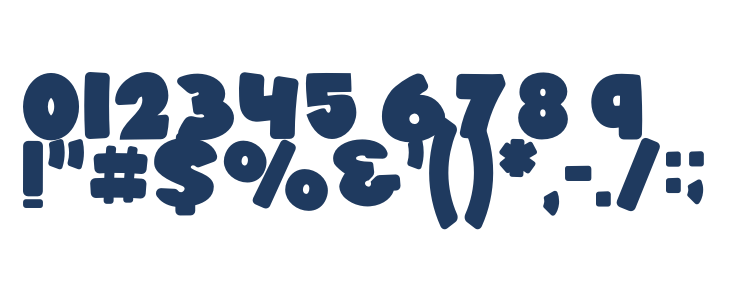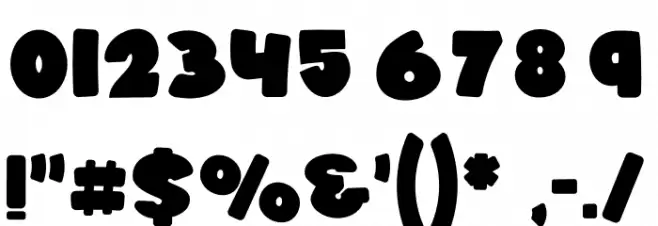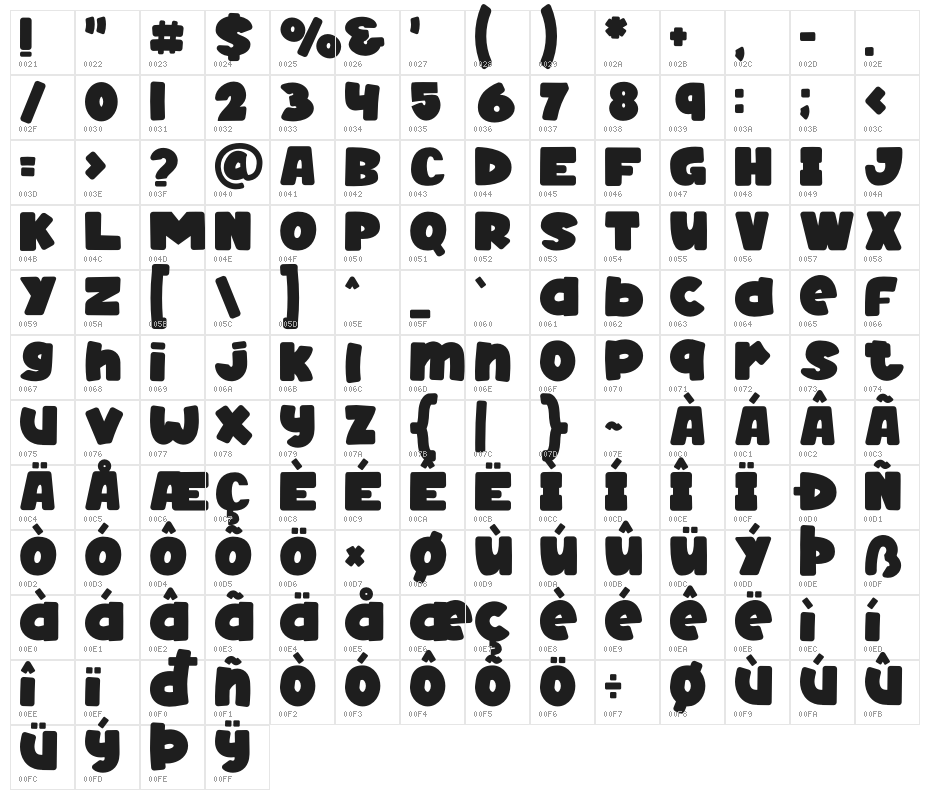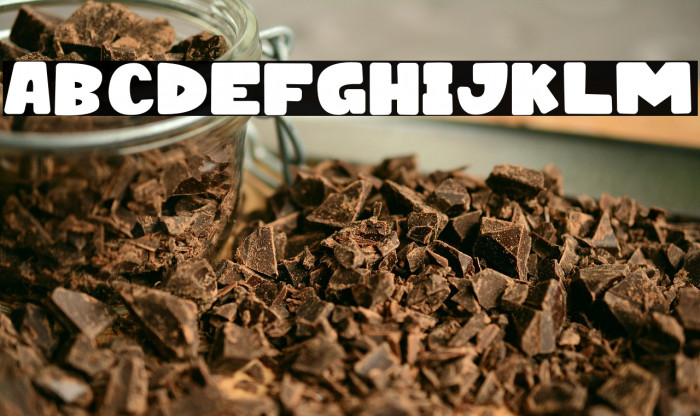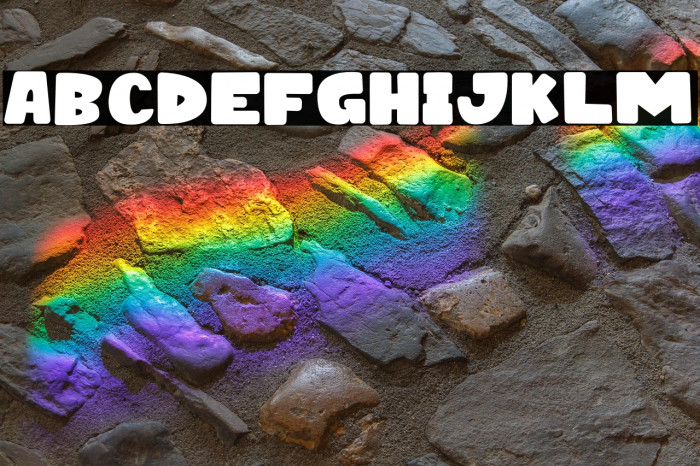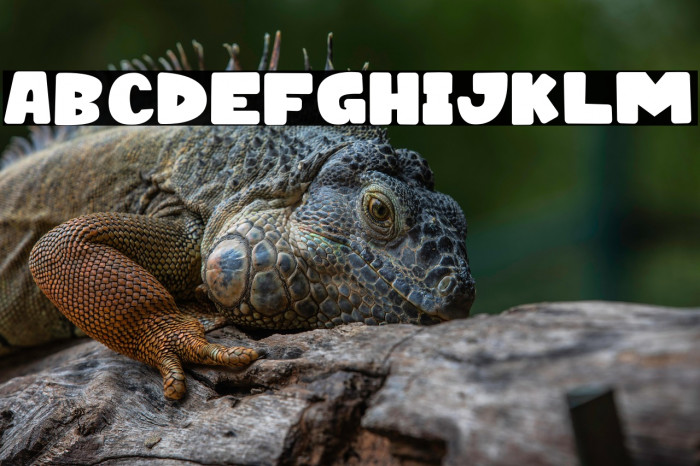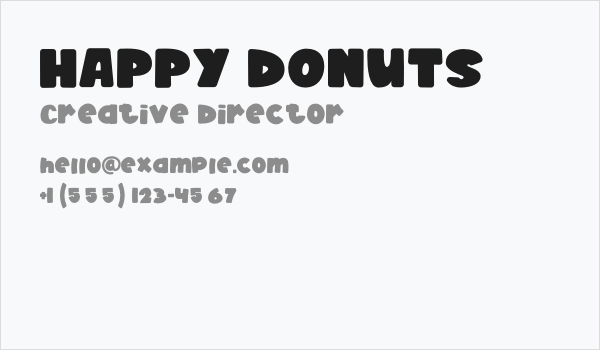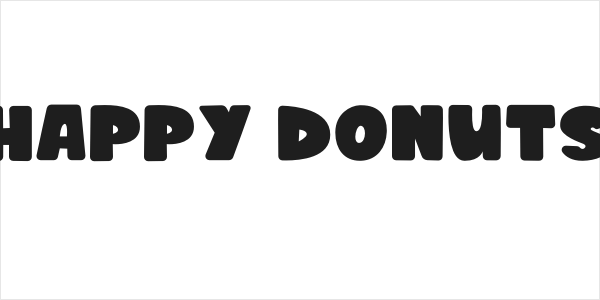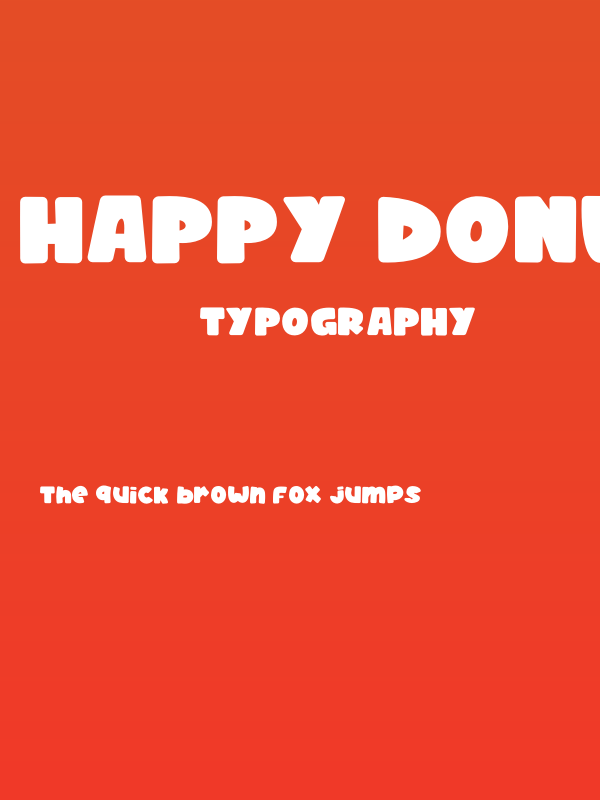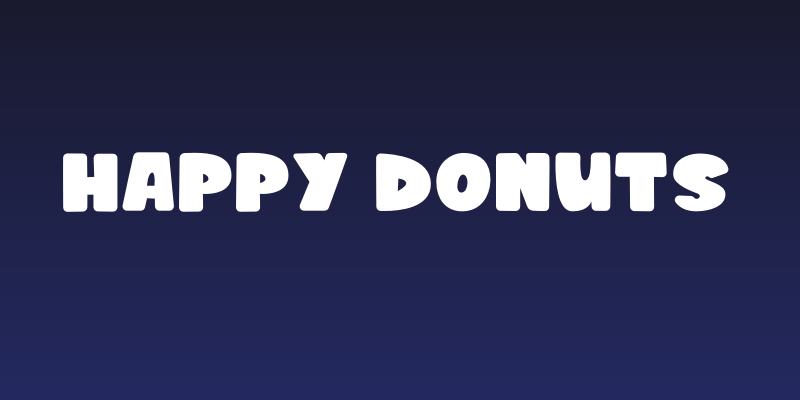
HAPPY DONUTS Font
HAPPY DONUTS Description
This playful and bold font features thick, rounded characters that exude a sense of fun and whimsy. The letters are uniformly bold, with a slightly uneven baseline that adds to its casual charm. The font's heavy weight and rounded edges make it highly legible, even at smaller sizes. Its unique style is reminiscent of retro or cartoon aesthetics, making it ideal for projects that require a touch of humor or lightheartedness. The numbers and special characters maintain the same playful design, ensuring consistency across all text elements.
| Overall Style | Playful, Retro |
| Proposed Projects | Ideal for children's books, playful branding, party invitations, and cartoon-themed projects. |